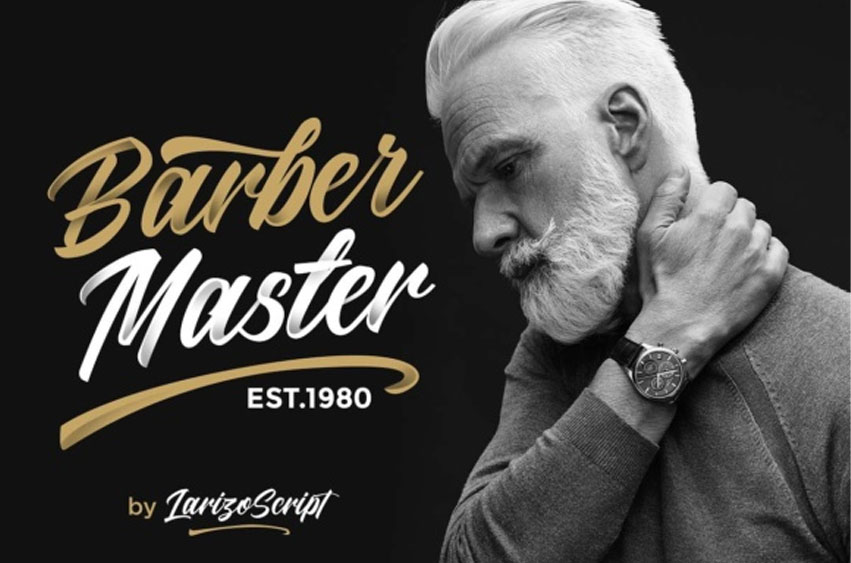
Larizo Script Font
Larizo Script Font is a truly personalized handmade lettering that’s transformed into a font!
It will certainly amaze your readers.